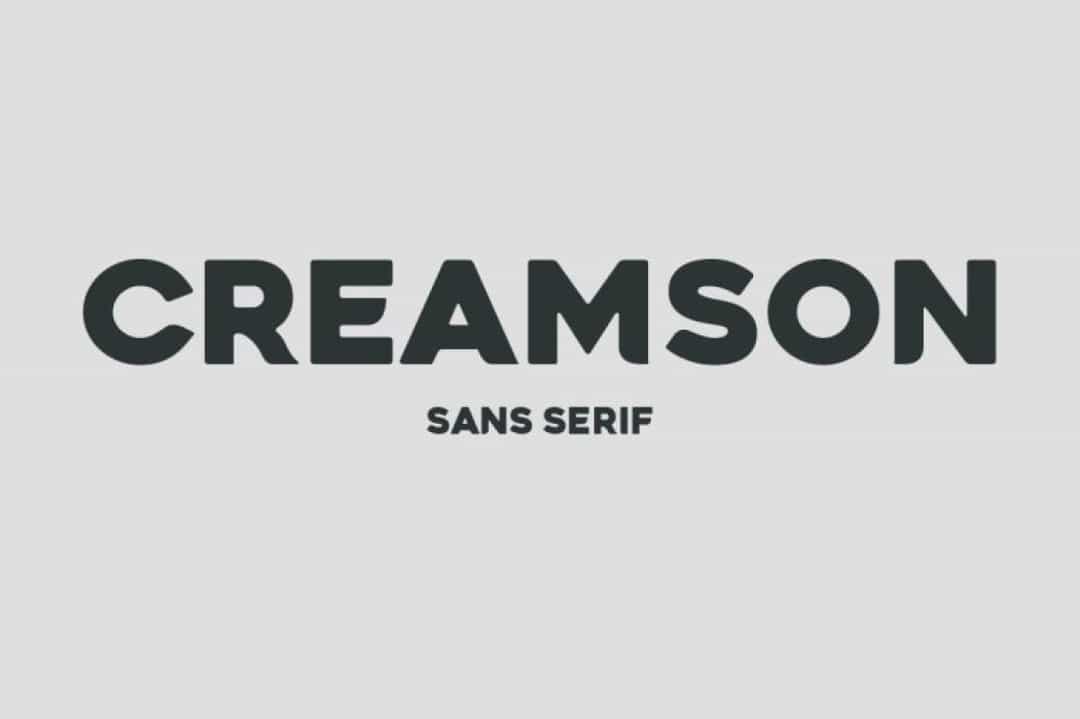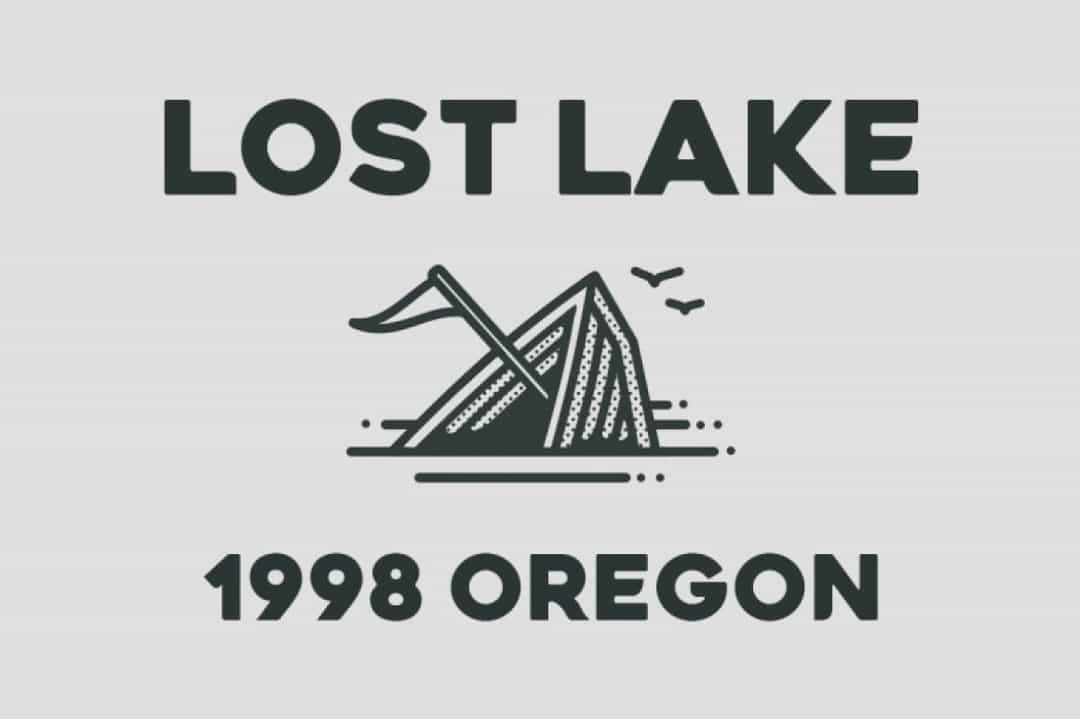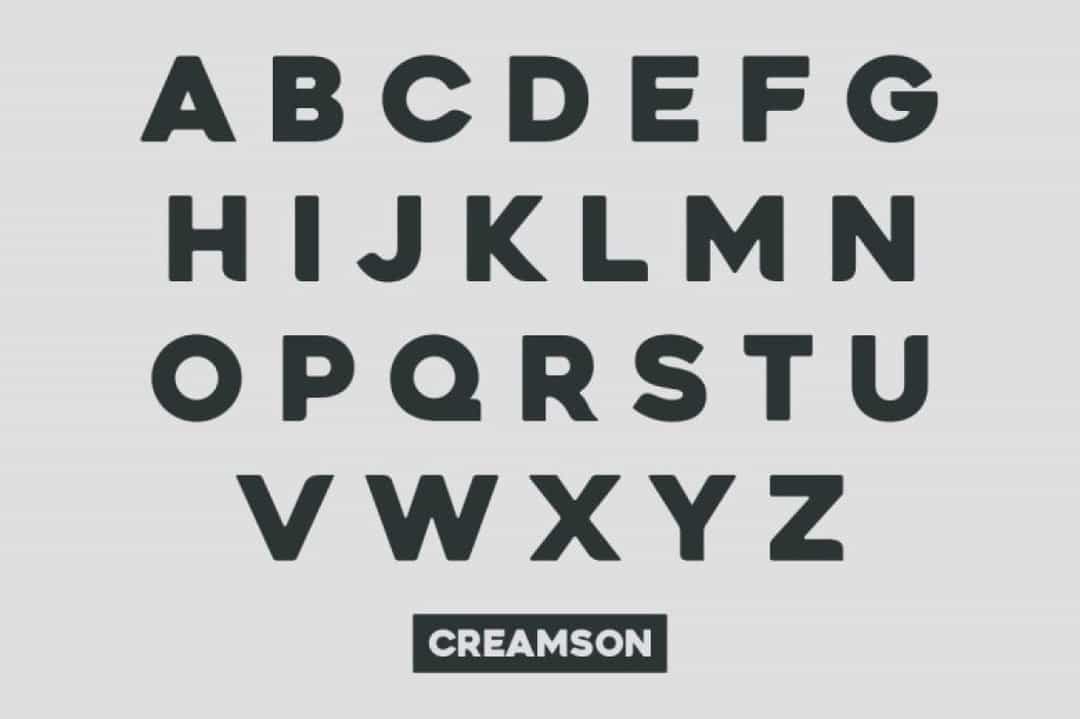
Creamson is an all capital Sans Serif font with a clean and simplistic appearance, featuring perfect curving edges that create soft yet bold shapes for an attractive overall appearance. A unique font design in Sans Serif font!